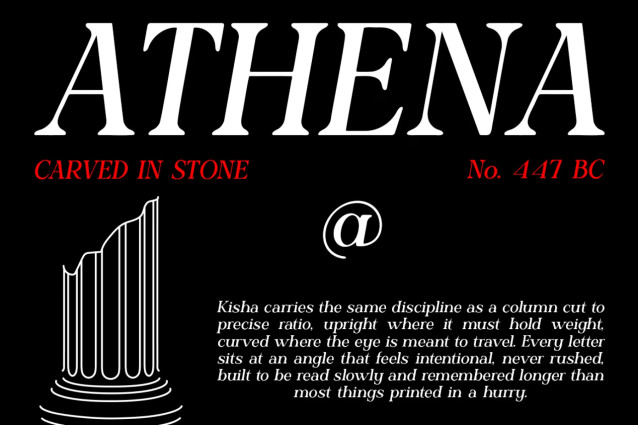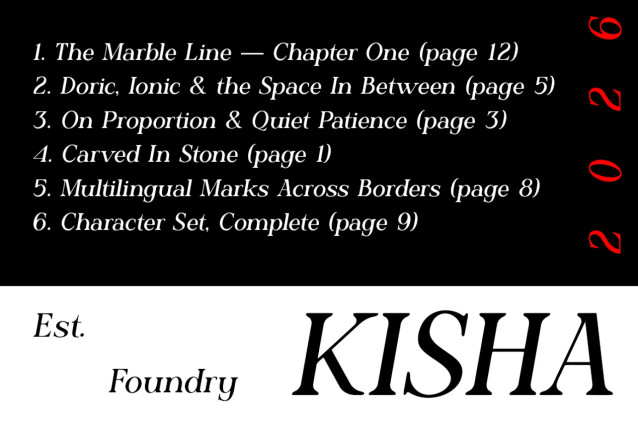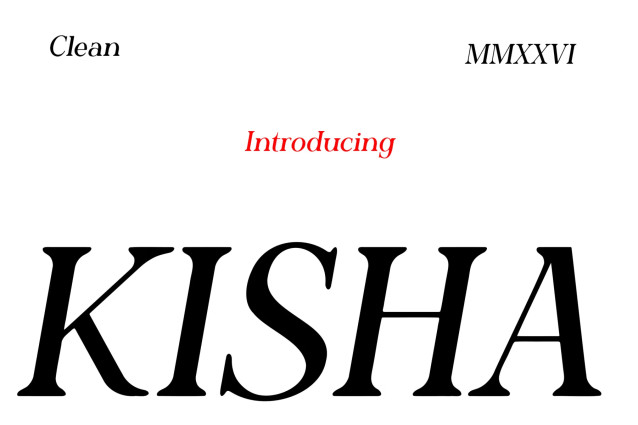
Modern Font KISHA – Marble & Ink
Modern Font KISHA carries itself like an ancient column still standing tall. To start with, its high-contrast serifs and refined curves borrow straight from classical stone inscriptions. As a result, every letter feels sculptural, almost architectural. Meanwhile, the sharp thin-thick stroke contrast adds a dramatic editorial touch. This makes it equally at home on a marble façade or a modern magazine cover.
Additionally, KISHA supports 67 languages with an extended character set. It even includes elegant accented letters and refined punctuation. Therefore, it bridges ancient elegance with global usability. In short, KISHA doesn’t just look classic — it performs beautifully too. It shines across headlines, logos, and long-form editorial layouts alike.